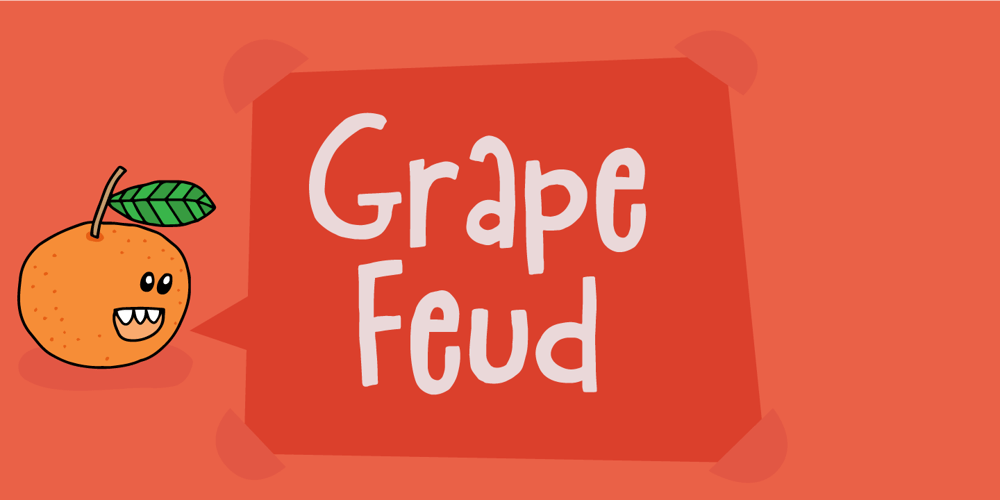
Grape Feud Font Family was designed by Jakob Fischer and published by PizzaDude.dk. Grape Feud contains 2 styles and family package options. The name Grape Feud is obviously a wordplay, and is derived of the, sometimes, mistaken of the orange and the (often) purple fruits.But Grape Feud is also a playful and charming no-nonsense comic style font. The x-height is quite unpredictable, and I’ve added ligature for the most common double letter combinations.